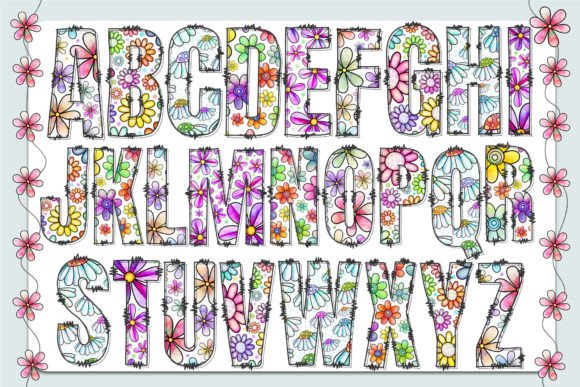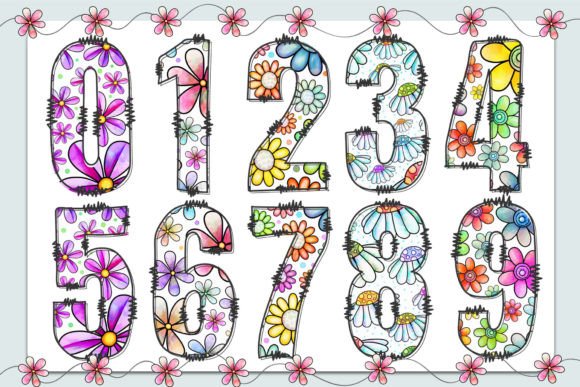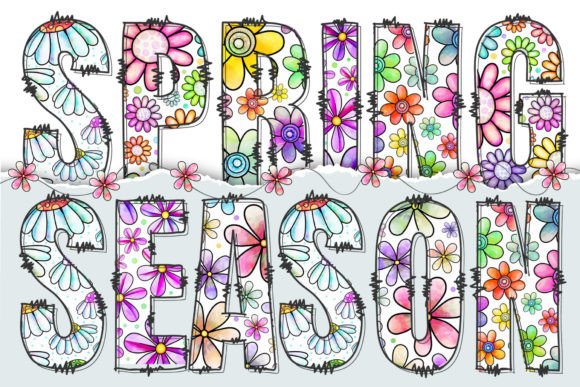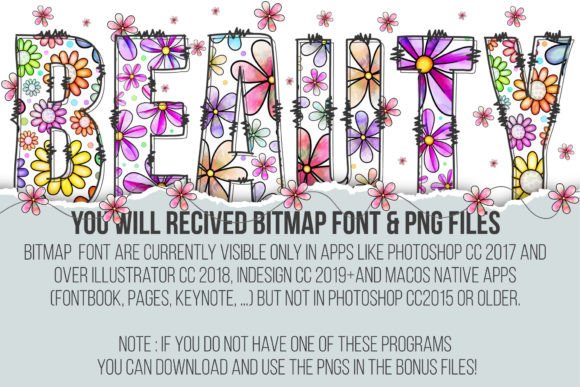
The Joy of Daisy Font: A Friendly and Playful Design Companion
I’ll never forget the time I was working on a project for a children’s party invitation. I had all the design elements ready, but something was missing – the perfect font. I scrolled through my font library, but nothing seemed quite right. That’s when I stumbled upon Daisy Font. Its friendly, daisy print design immediately caught my eye, and I knew I had found the perfect match. In this article, I’ll share my experience with Daisy Font, its features, and how to make the most of it in your designs.
An Honest Review of Daisy Font
- ✨ Friendly and approachable design that’s perfect for projects that require a playful touch
- ✅ Easy to read and understand, even at smaller font sizes
- 🌼 Beautiful daisy print design that’s sure to add a touch of whimsy to any project
- 💻 Works well on both digital and print materials
While Daisy Font is an excellent choice for many projects, there are a few things to keep in mind:
- 🤔 Limited use in formal or professional settings, as it’s quite playful
- ⚠️ May not work well with very long texts, as it can become overwhelming
The Backstory of Daisy Font
Daisy Font was designed with the intention of creating a friendly and approachable font that’s perfect for everyday designs. The designer wanted to create a font that would add a touch of playfulness and whimsy to any project, without being too overwhelming or distracting. The result is a beautiful, daisy print font that’s sure to delight.
Q: What type of projects is Daisy Font best suited for?
A: Daisy Font is perfect for projects that require a playful and friendly touch, such as children’s party invitations, greeting cards, and social media graphics.
Q: Is Daisy Font easy to read?
A: Yes, Daisy Font is designed to be easy to read and understand, even at smaller font sizes.